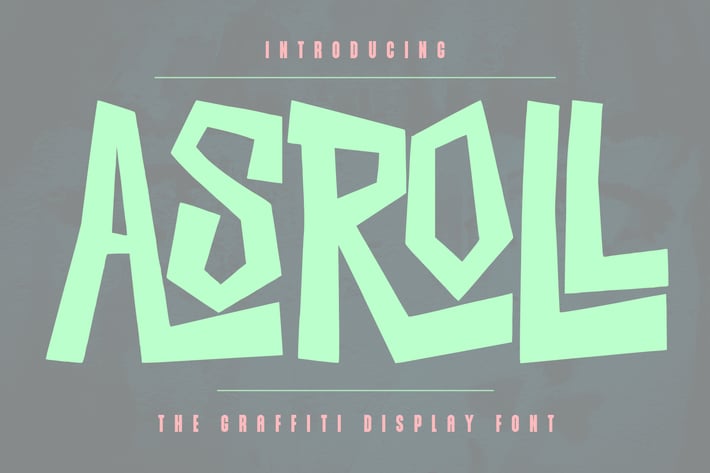
Asroll Graffiti Display Font
Asroll graffiti display font, fun character with ligatures. To give you an extra creative work. Asroll handmade brush display font support multilingual language.